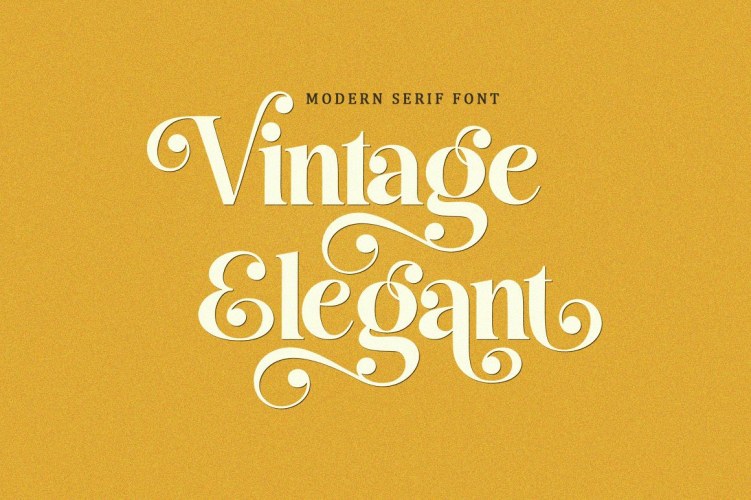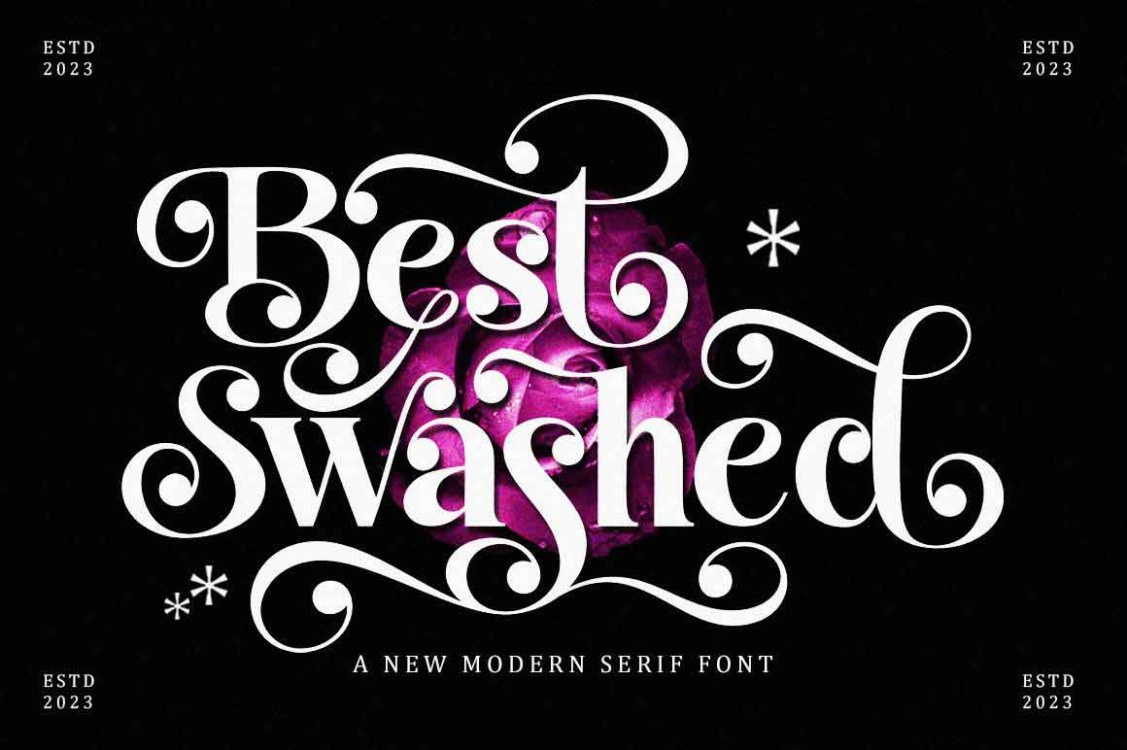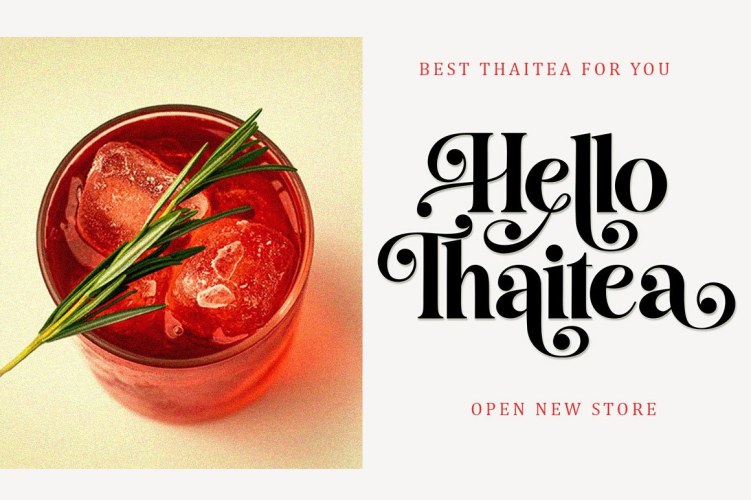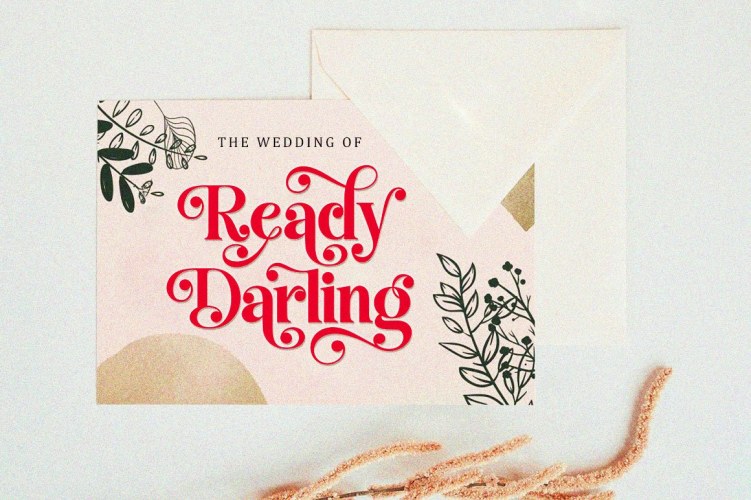
Best Swashed Font
Best Swashed is a beautiful, versatile serif font. This font is characterized by a serif style with a luxurious style in a modern form, but also a friendly and playful s…
Best Swashed is a beautiful, versatile serif font. This font is characterized by a serif style with a luxurious style in a modern form, but also a friendly and playful style in bold, Best Swashed has glyphs to give crafters more options in designing. This modern style will make a design appear more classy, elegant, unique and edgy.
Best Swashed is a font suitable for many projects, for modern or even retro vintage designs, branding, logos, crafts, stickers, sublimation, wedding invitations, and more. This font is suitable for a variety of projects such as logos, branding, magazines, signage, fashion, and many more.
Where Best Swashed Font works best
Best Swashed Font gives long-form text a classic, trustworthy rhythm — ideal for magazine spreads, annual reports and book interiors.
Pair Best Swashed Font with generous letter-spacing for wordmarks in fashion, hospitality, wine and jewellery branding.
Use Best Swashed Font for slide titles in Keynote, PowerPoint or Google Slides to add authority without looking dated.
What is Best Swashed Font good for?
Best Swashed Font is a Serif Fonts typeface tagged Bold, Elegant, Friendly, Modern. It works well for headlines, logos, posters, social media graphics and branding projects that need a distinctive serif fonts look.